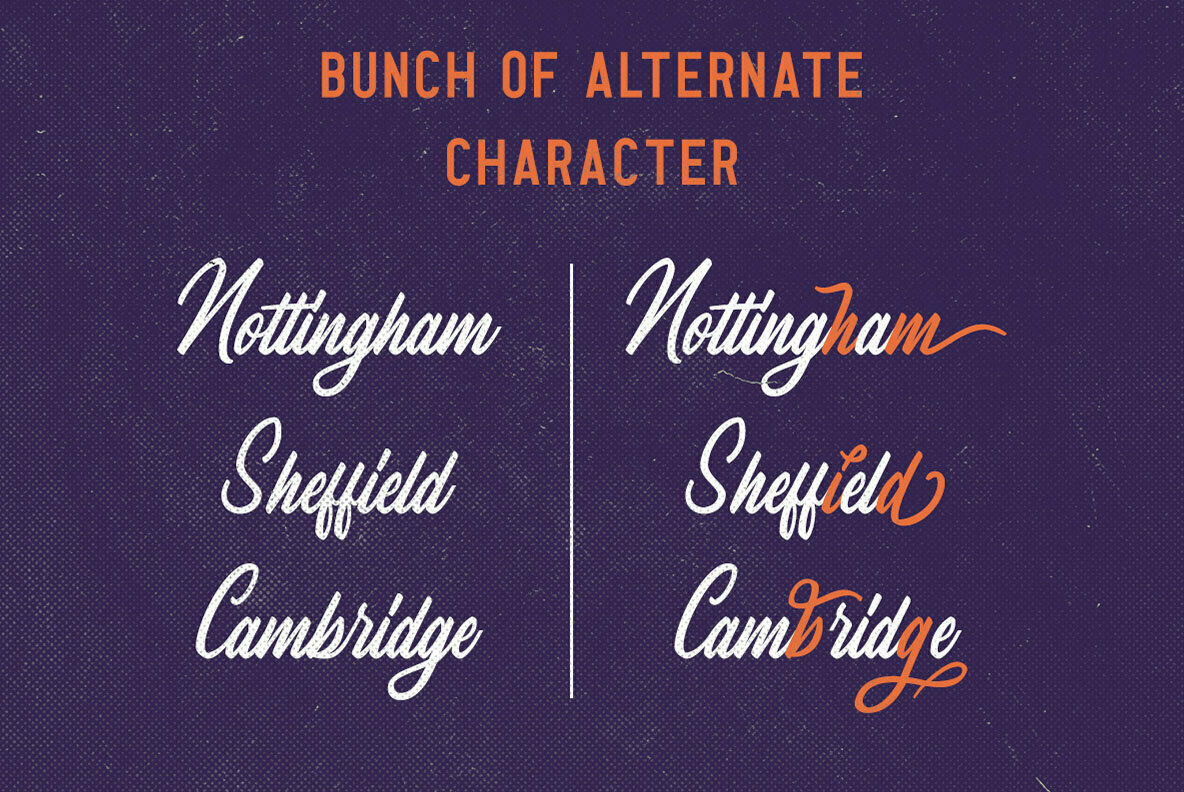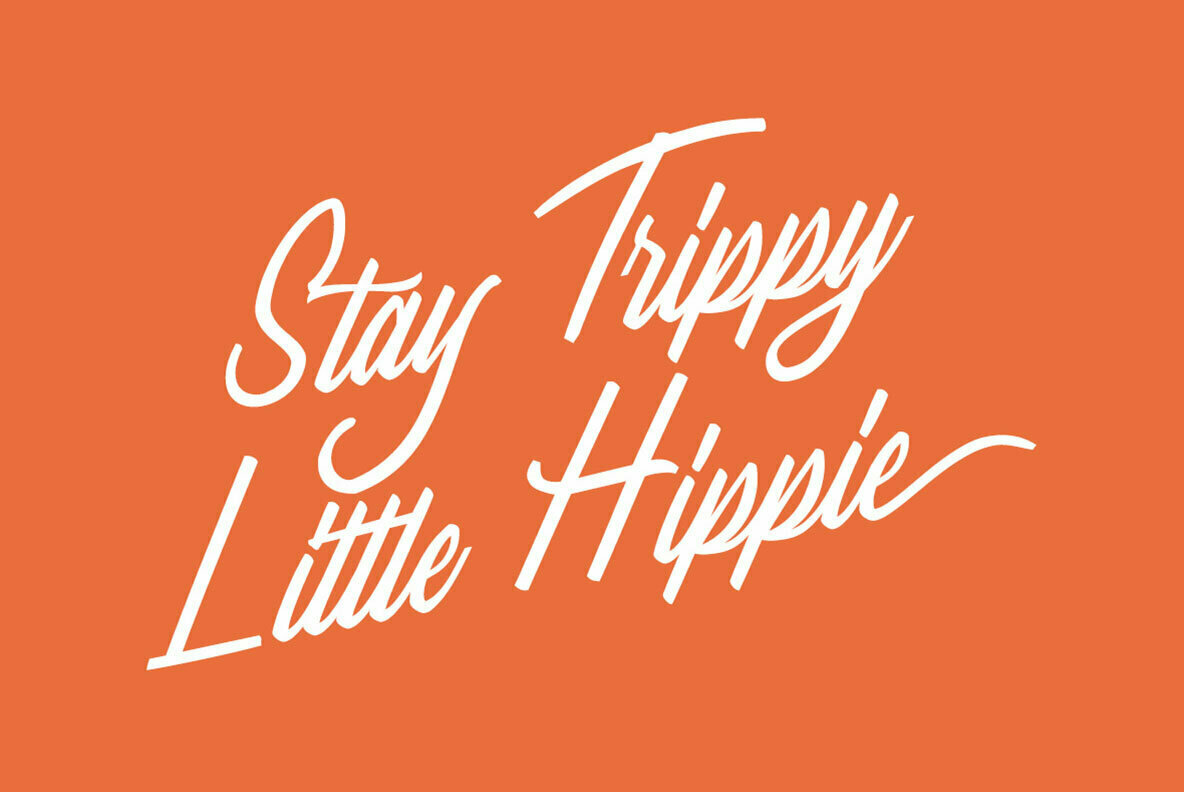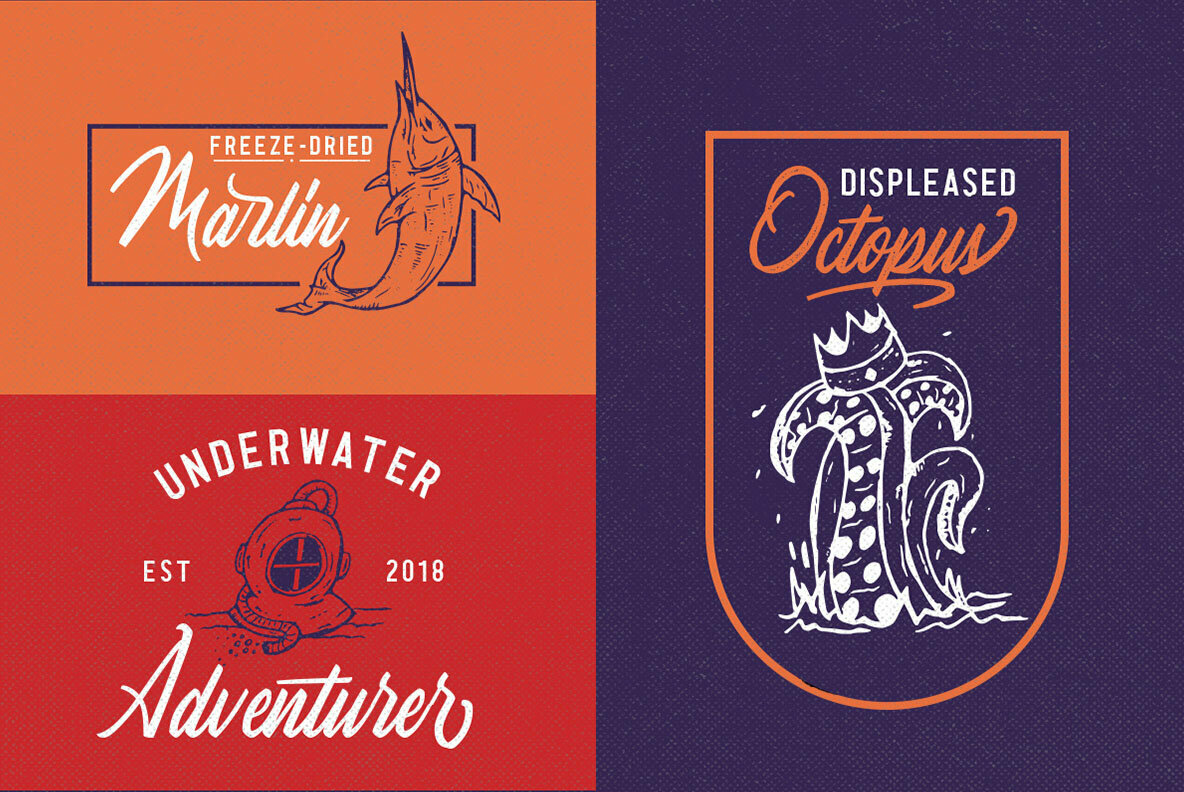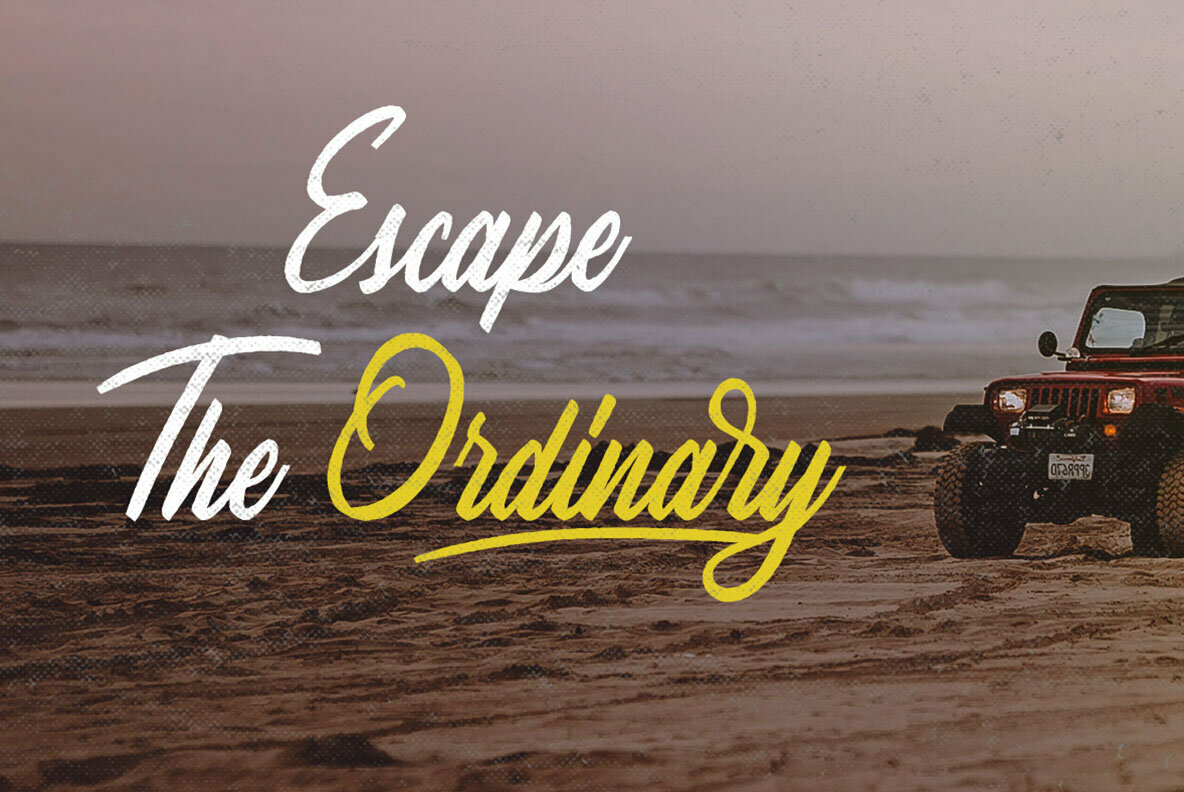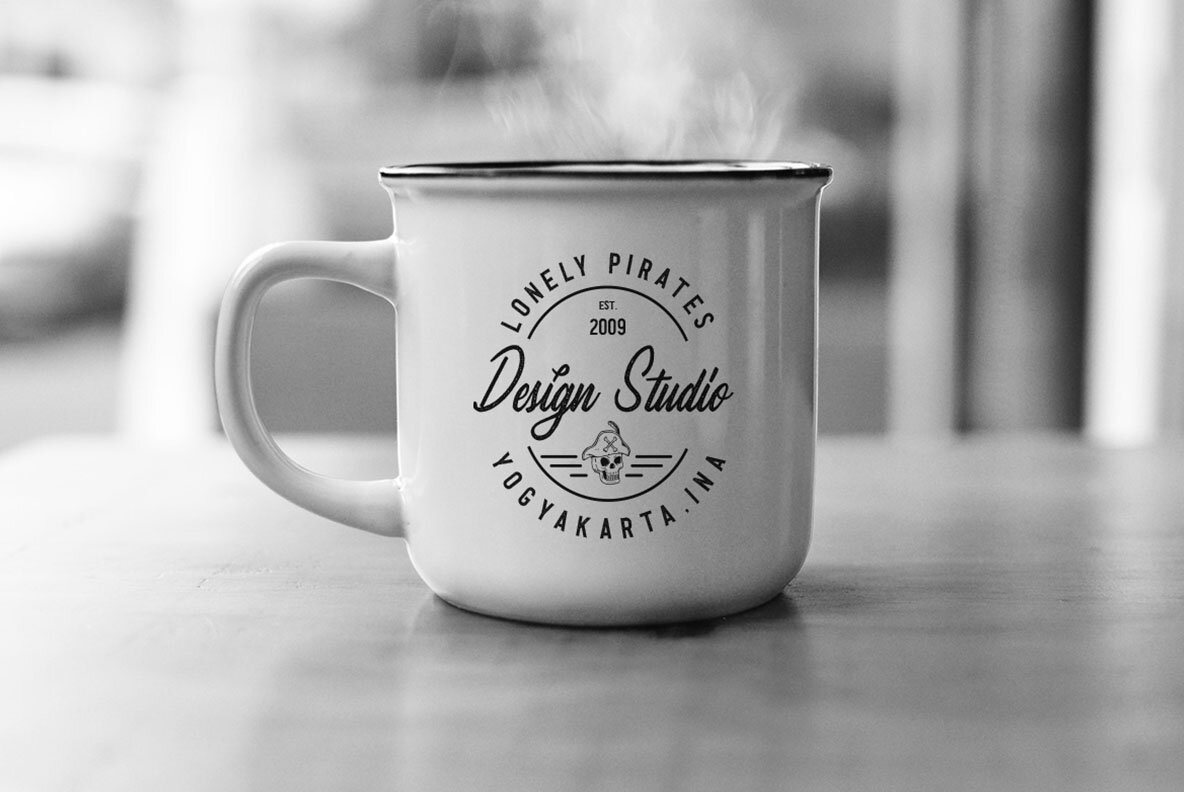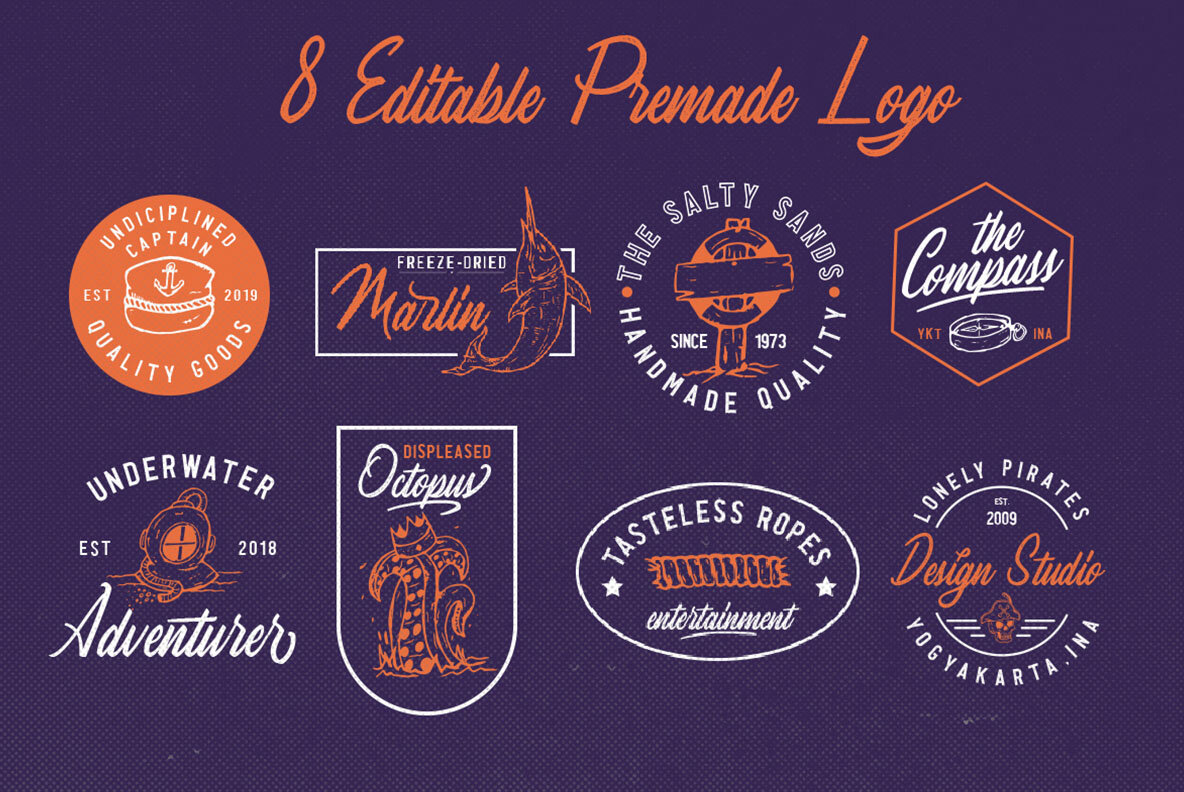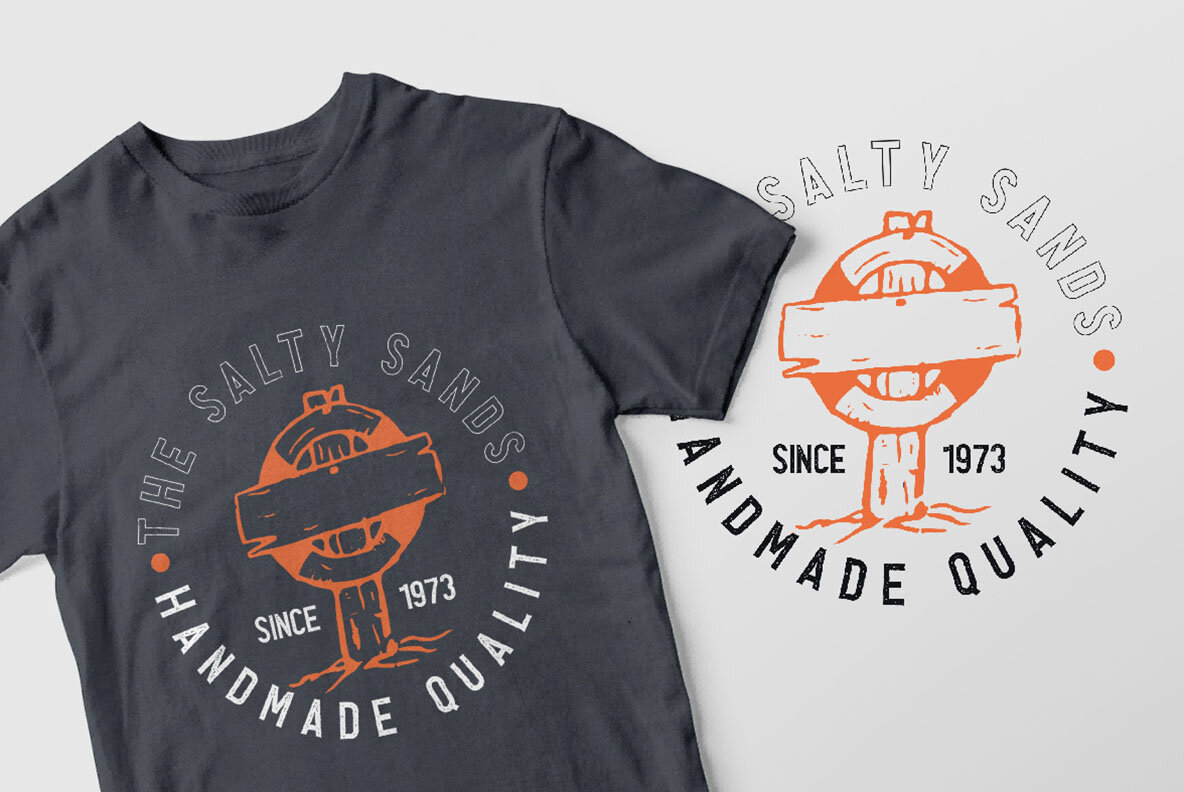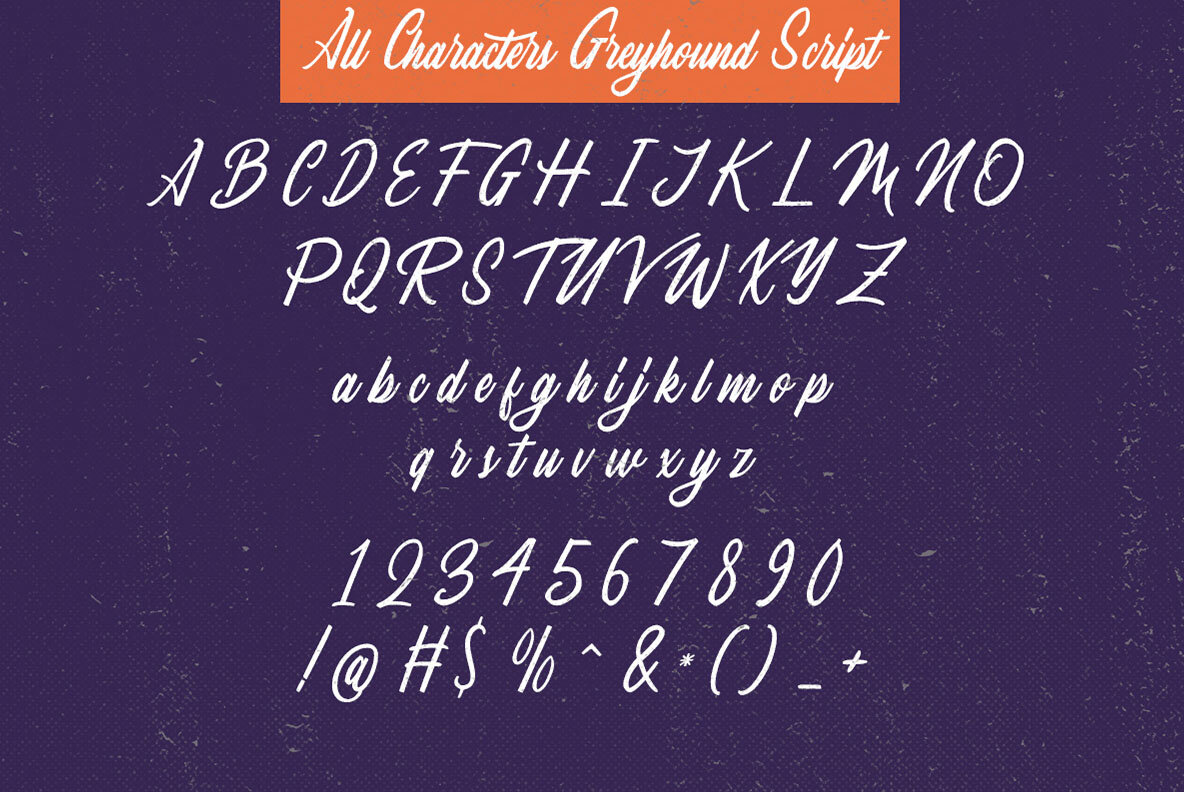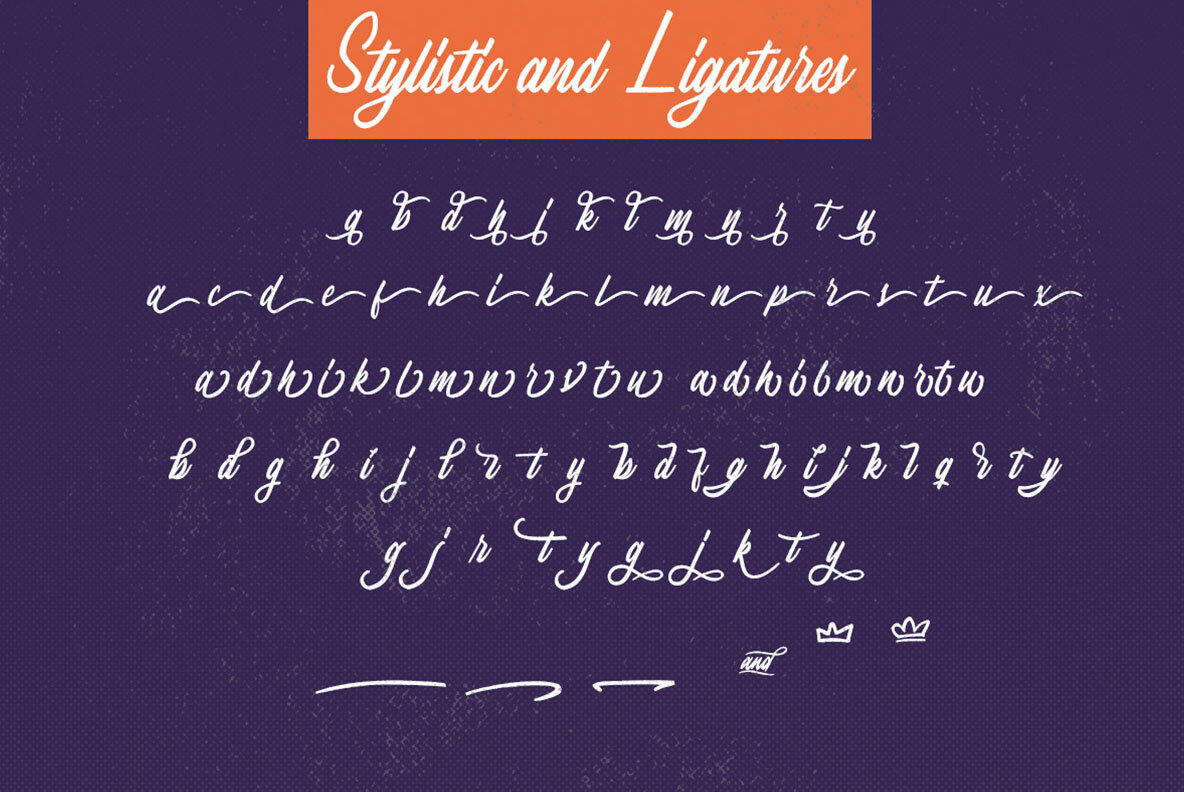
The Greyhound Font Duo
Greyhound is a great font selection for a big range of design projects. These fonts will add a beautiful and light retro charm to any design project! This font is perfect for branding logo, illustration, or apparel design. This font also support multilingual, number and symbol. This font comes in three style, regular, stamp, and block. The script style have the clean feel, the stamp gives you the aged feel with texture on it, and the block style have a rough edge.